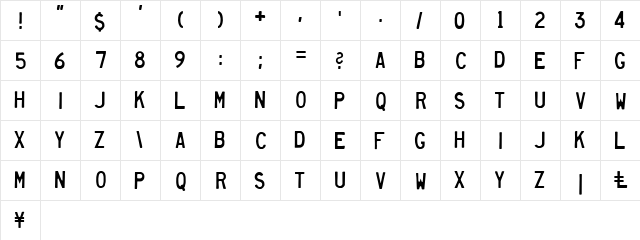
Heavy Equipment Regular
Design Context for Heavy Equipment Typeface
Heavy Equipment offers clean, dependable letterforms without strong stylistic allegiance, making it a practical choice for designers who need flexibility.